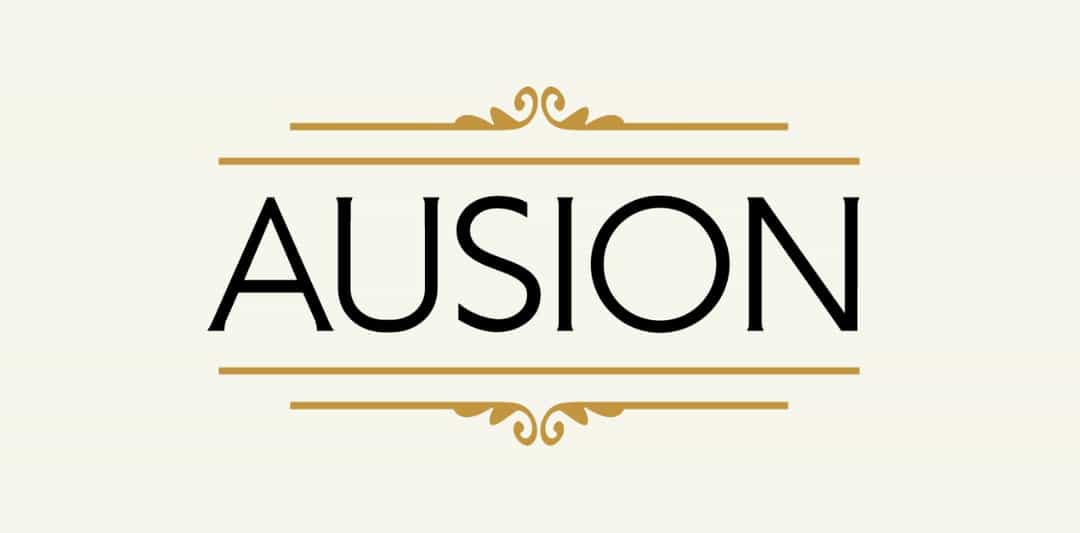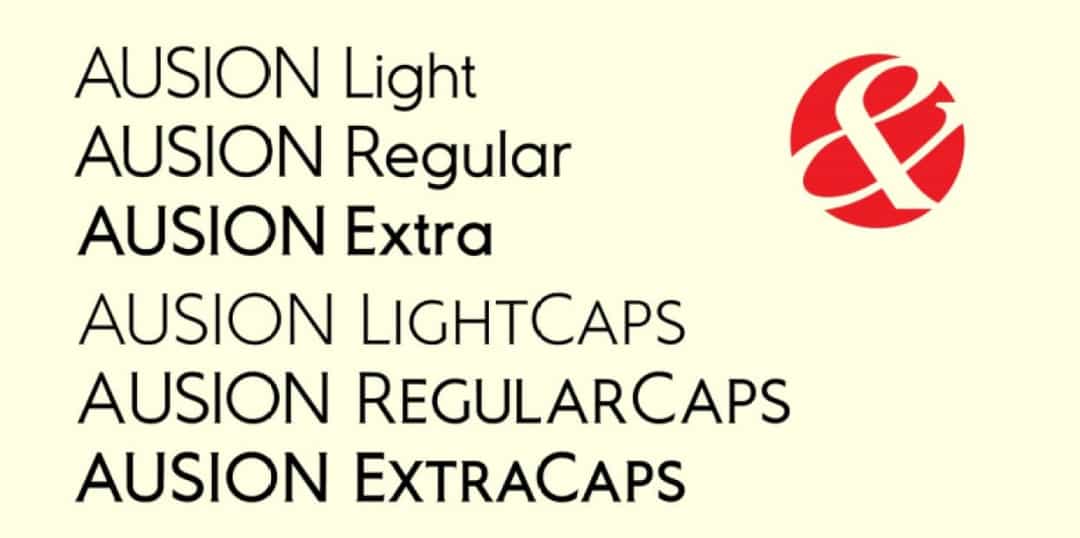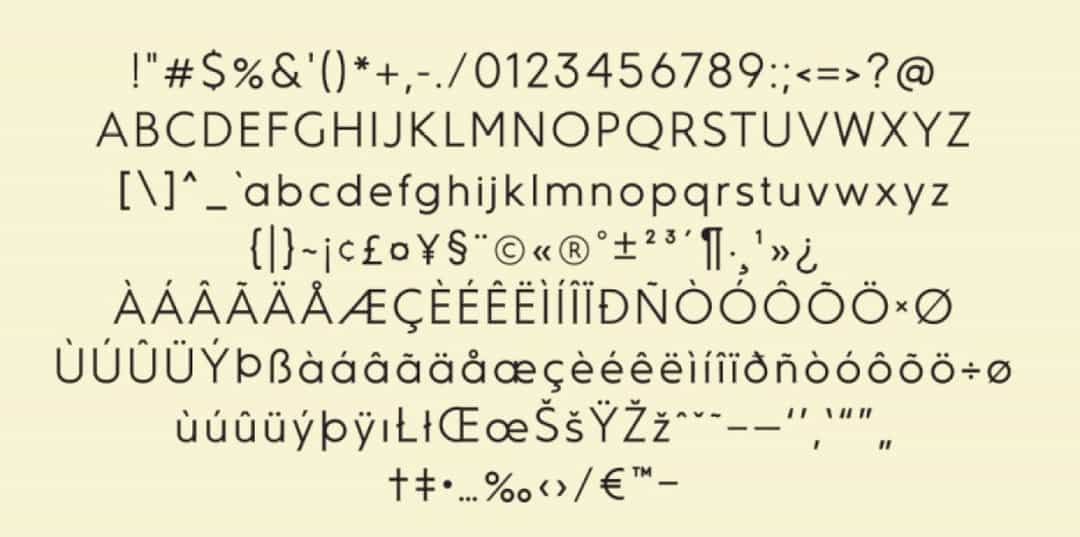
Ausion is an elegant sans serif typeface family with clean and modern aesthetic. This font can easily fit into numerous design projects; so make the most out of its versatility in your designs to see them stand out!